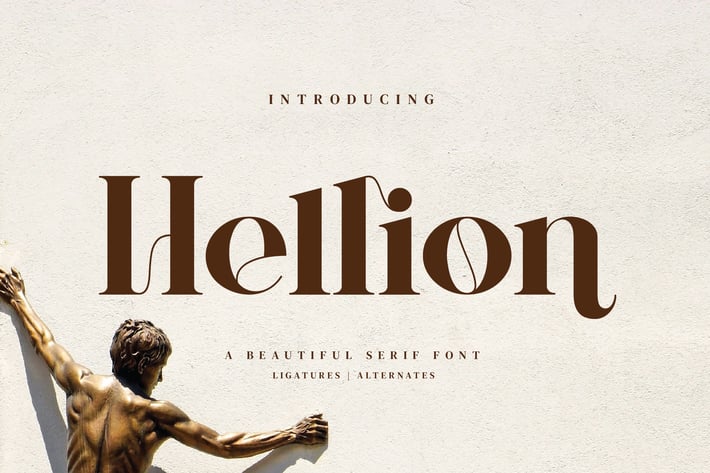
Hellion - Beautiful Ligature Font
Hellion Stylish Ligature Typeface, inspired by the famous minimalist logo perfect for the purposes of designing templates, brochures, videos, advertising branding, logos and more.